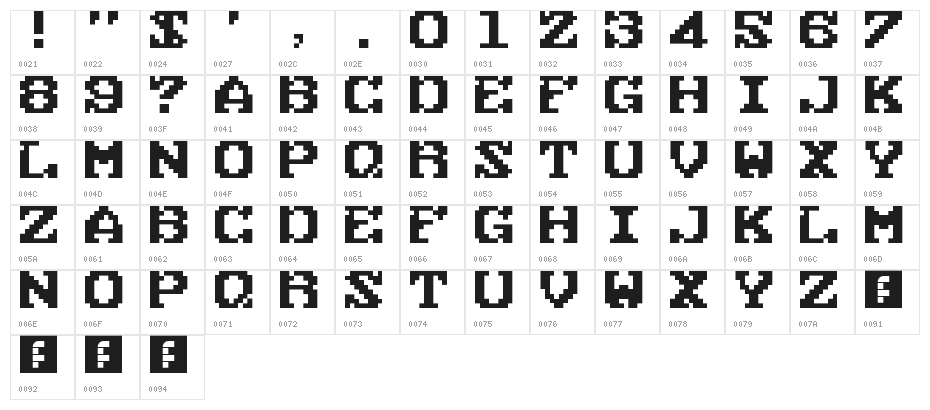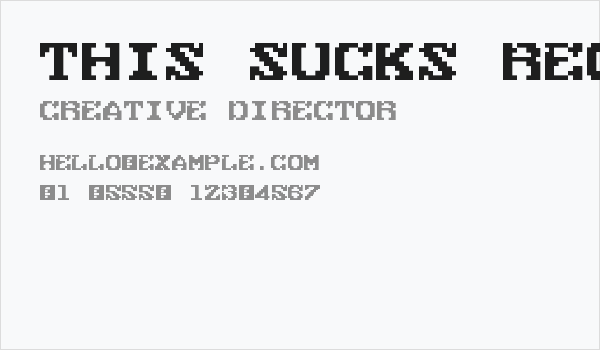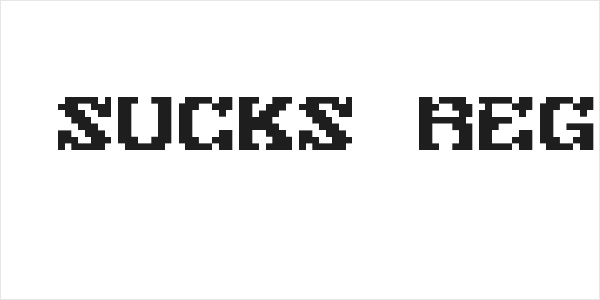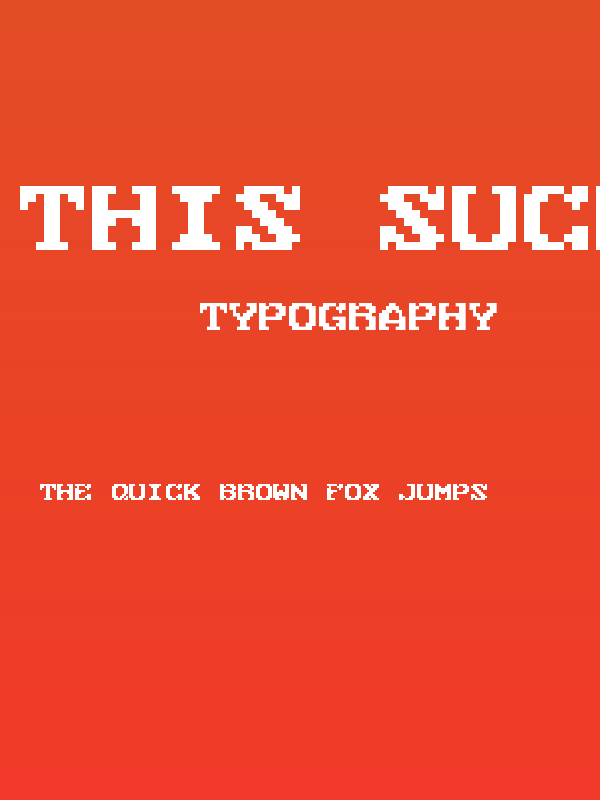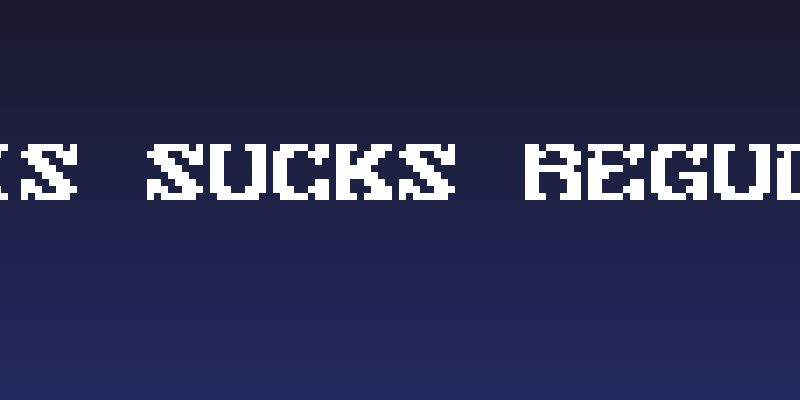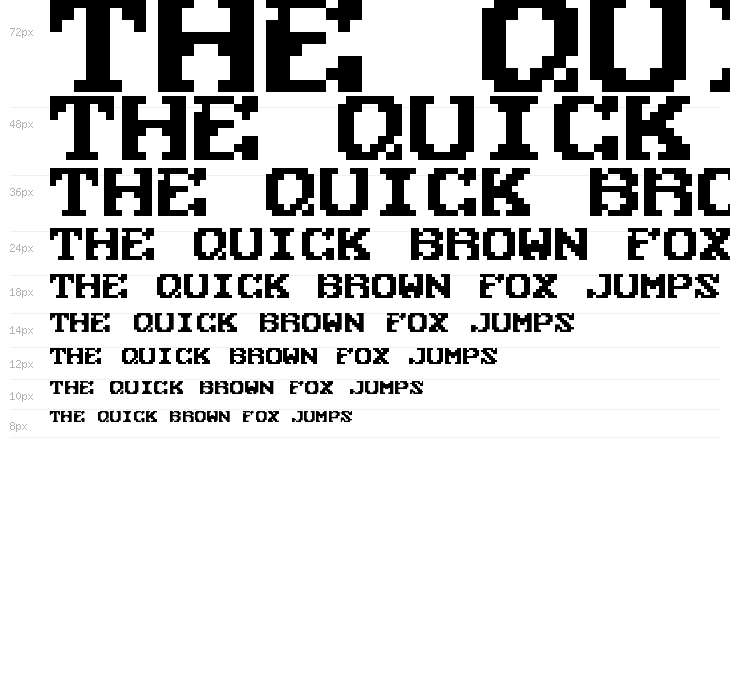
This Sucks Regular Font
This Sucks Regular Description
This font features a bold, pixelated style reminiscent of early digital and arcade graphics. Each character is constructed with a blocky, grid-like appearance, giving it a distinctly retro and digital feel. The uppercase and lowercase letters maintain a consistent height, with minimal differentiation between them, enhancing the uniformity of the design. Numbers and special characters follow the same pixelated pattern, ensuring a cohesive look across all glyphs. The font's geometric structure and sharp edges make it highly legible at various sizes, though it is best suited for larger displays where its unique style can be fully appreciated.
| Overall Style | Retro, Digital |
| Proposed Projects | Ideal for video game design, retro-themed posters, digital art projects, and any creative work seeking a nostalgic digital touch. |